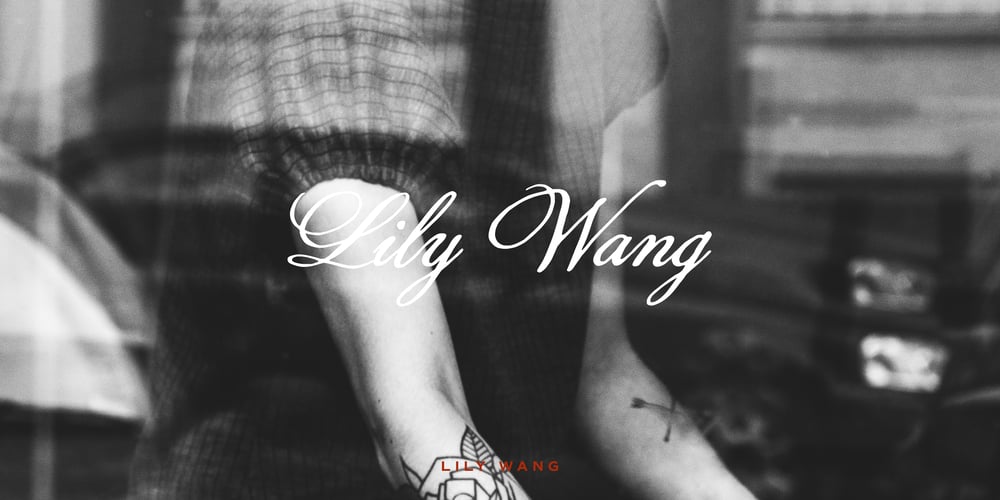
Lily Wang
Lily Wang font
Lily Wang Font Family was designed by Ryoichi Tsunekawa and published by Dharma Type. Lily Wang contains 1 styles and family package options. Based on some script in the 19th century. Inky texture gives realistic handwriting appearance. Smooth writing feeling creates antiqued and nostalgic atmosphere. Big flourish and elegant script! There are two other script designed by in the same concept. -Daisy Lau -Lily Wang -Pansy Bo